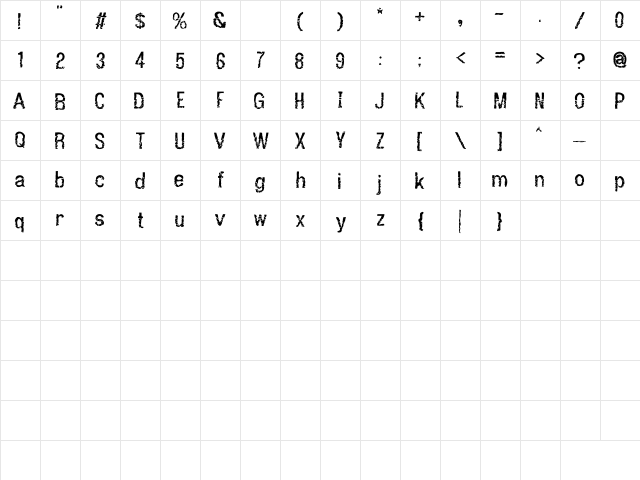
Dont Walk Run Regular
| Foundry | Starving-4 Entertainment |
| Designer | Darren Rigby |
Design Context for Dont Walk Run Typeface
Dont Walk Run is a composed and adaptable typeface that performs quietly and consistently across a wide range of design contexts.